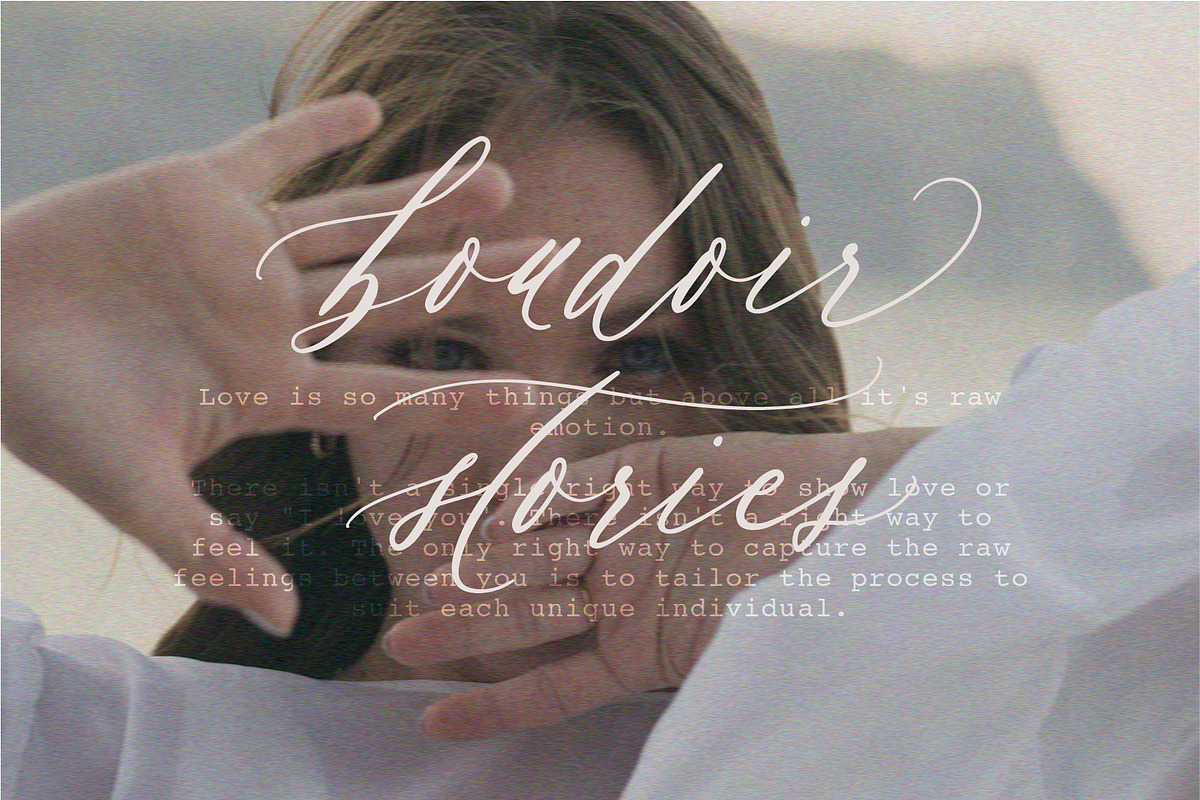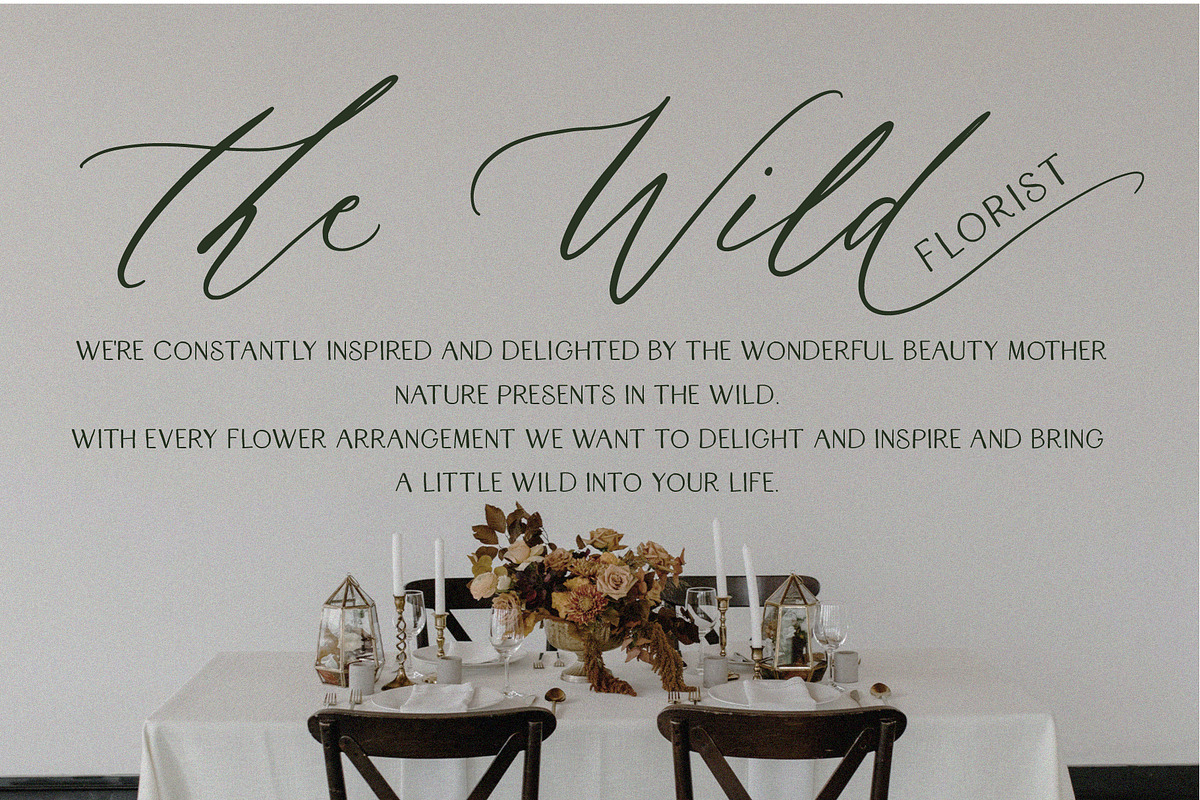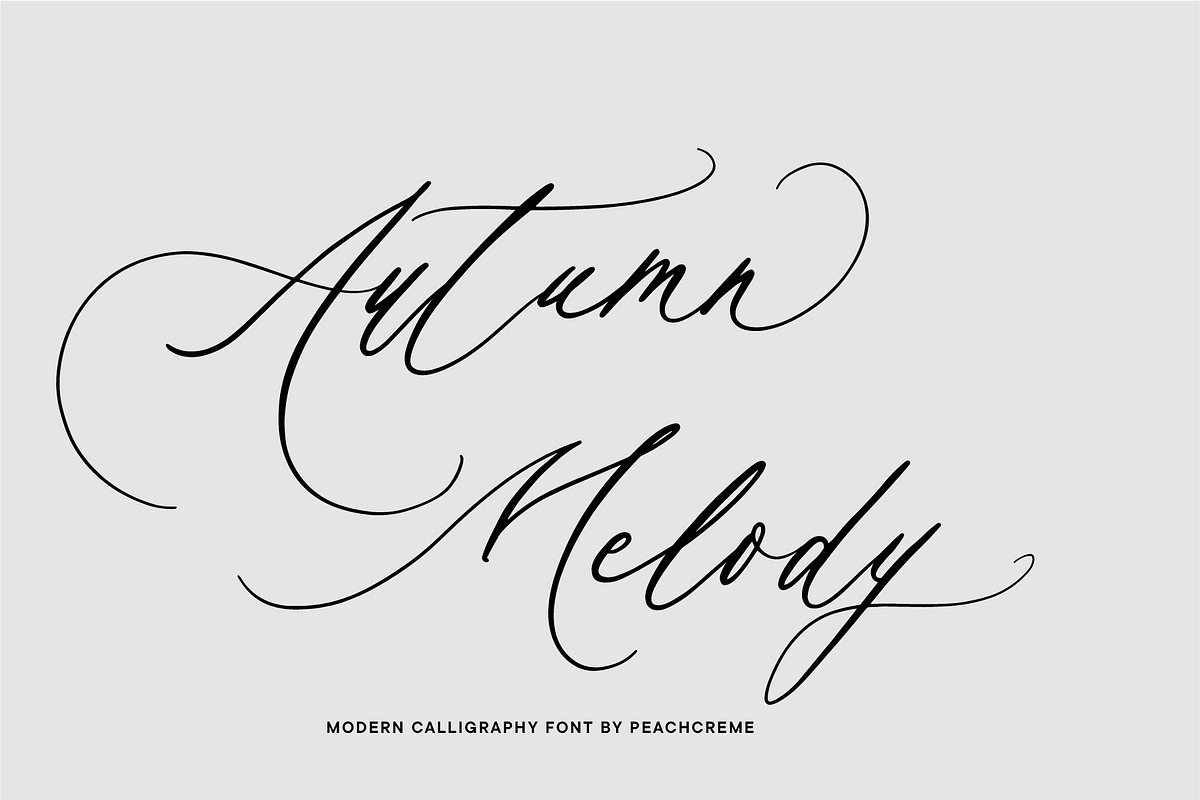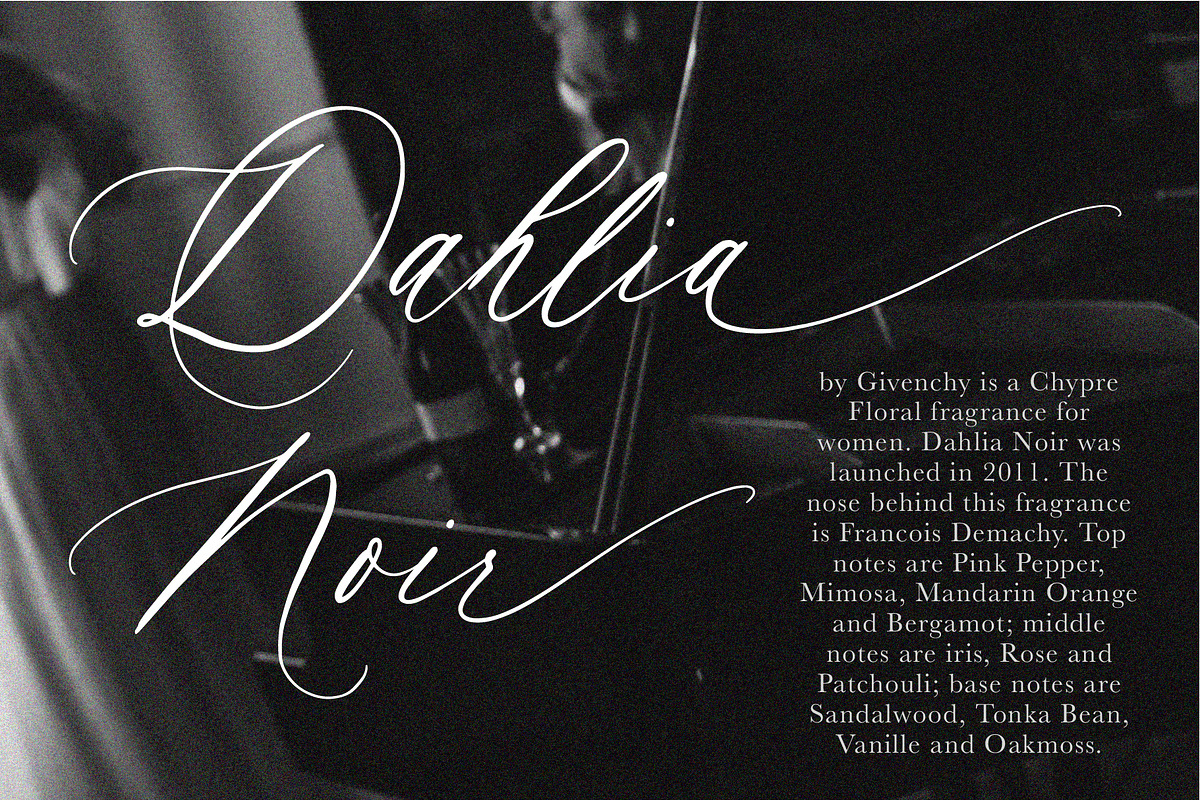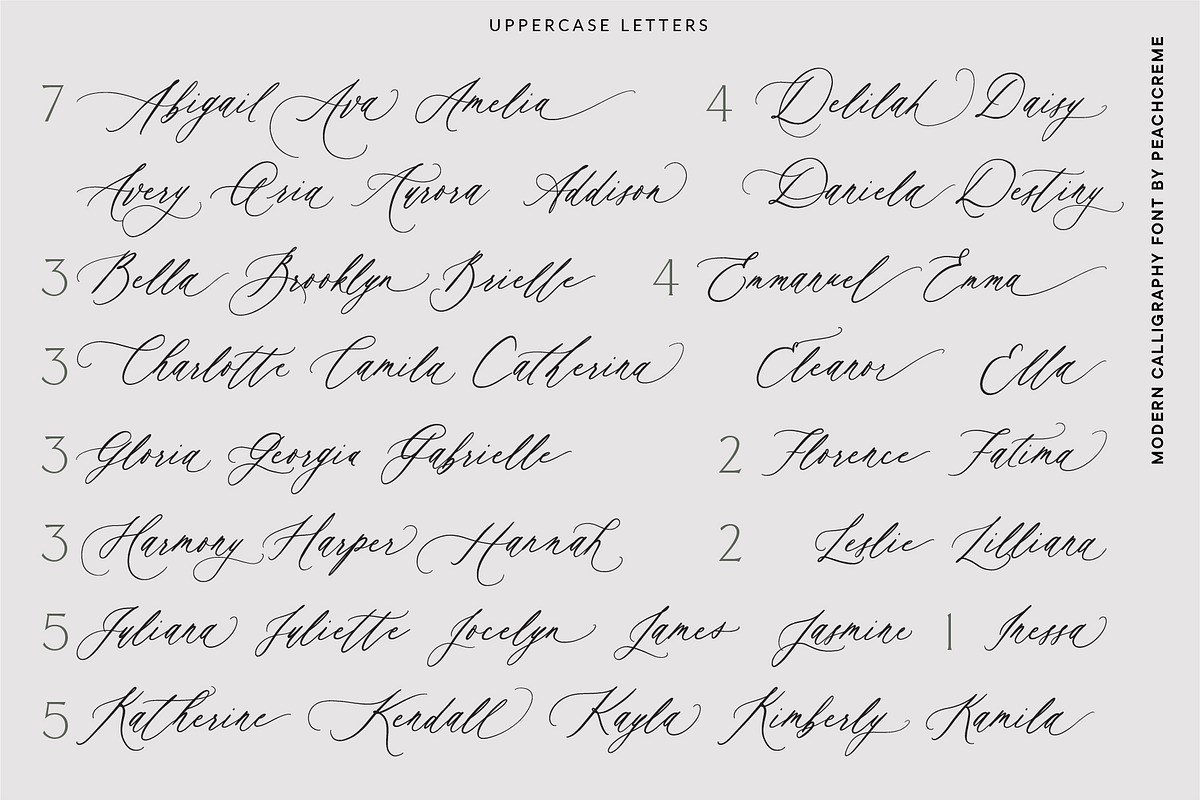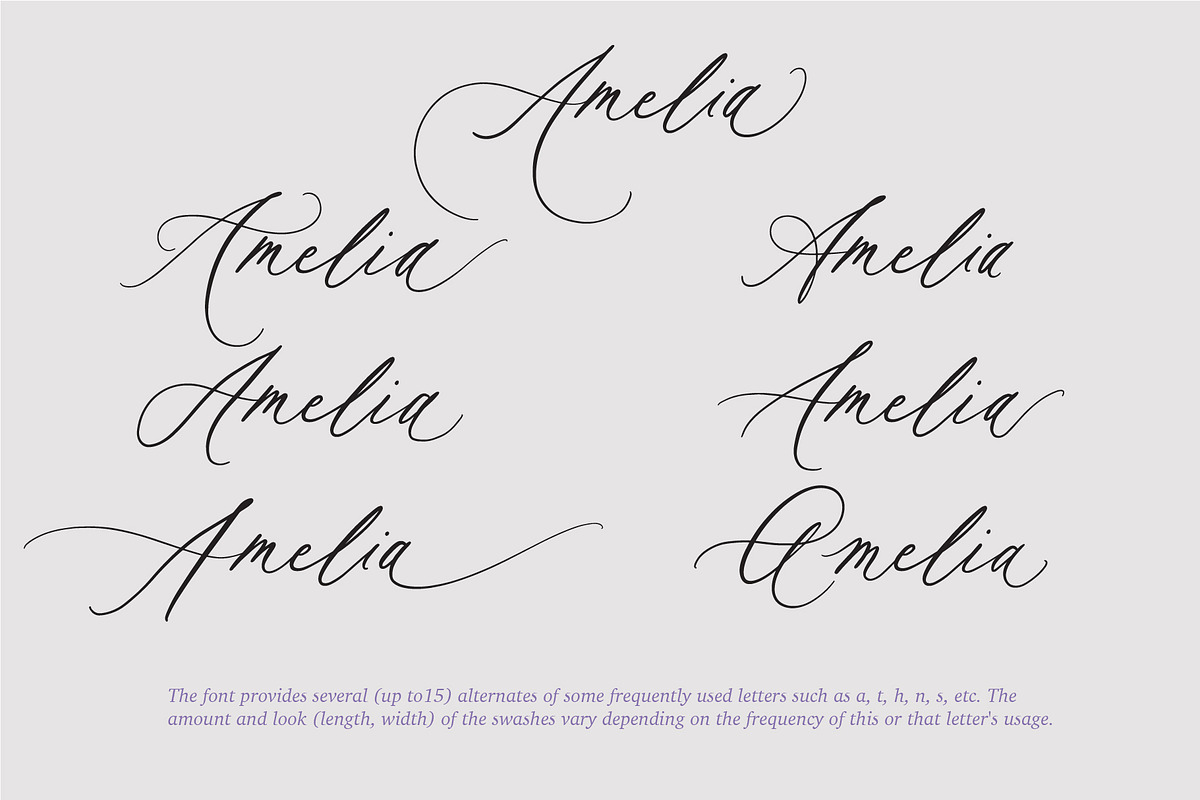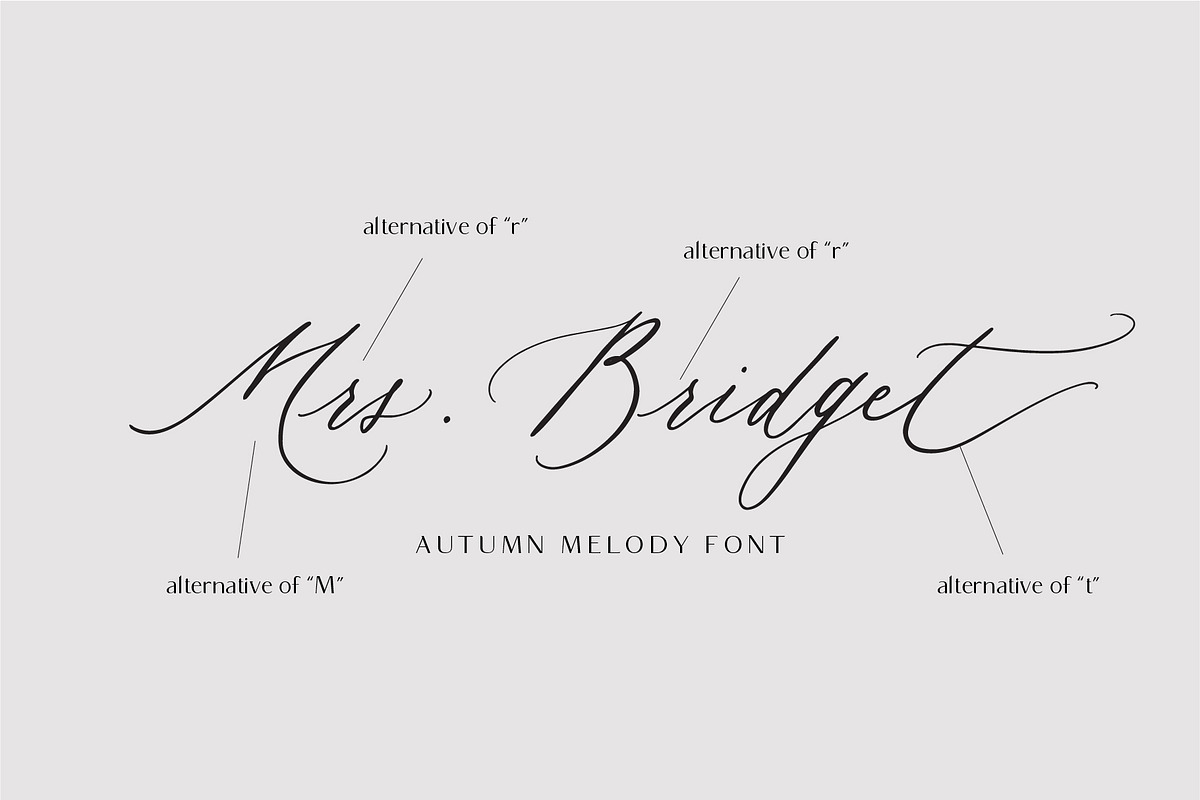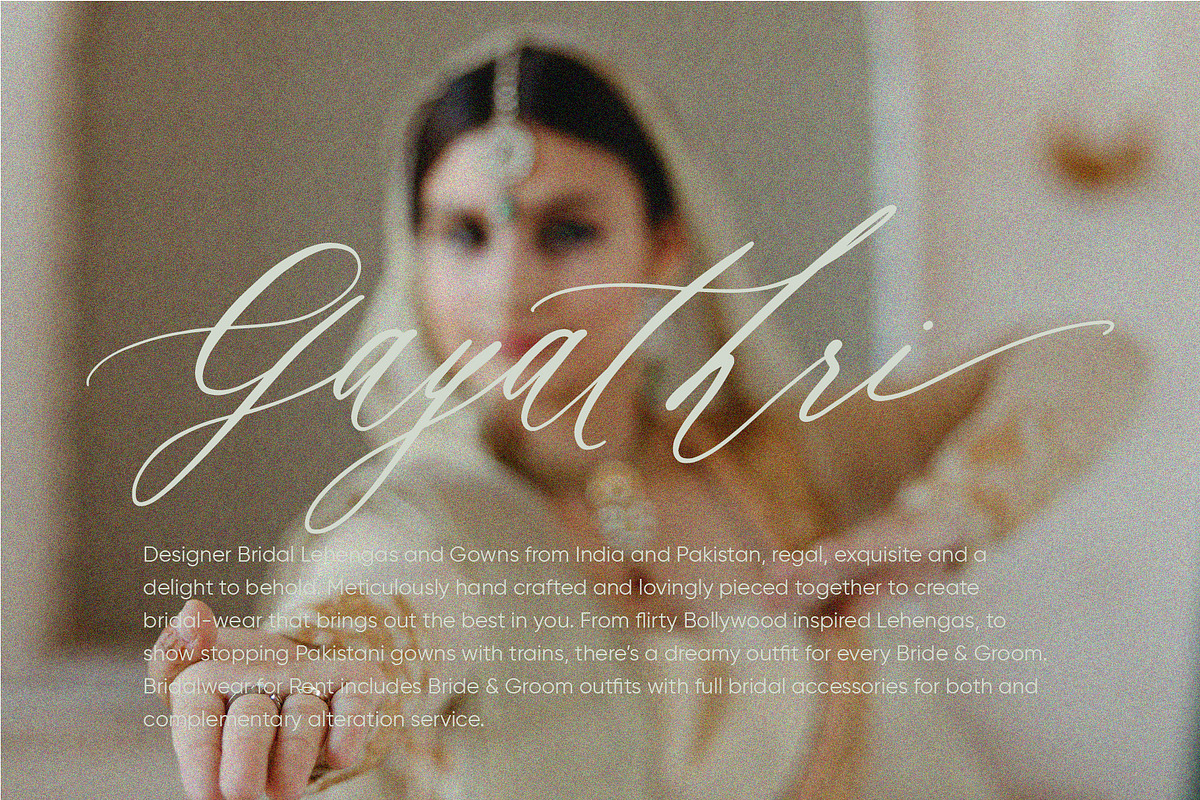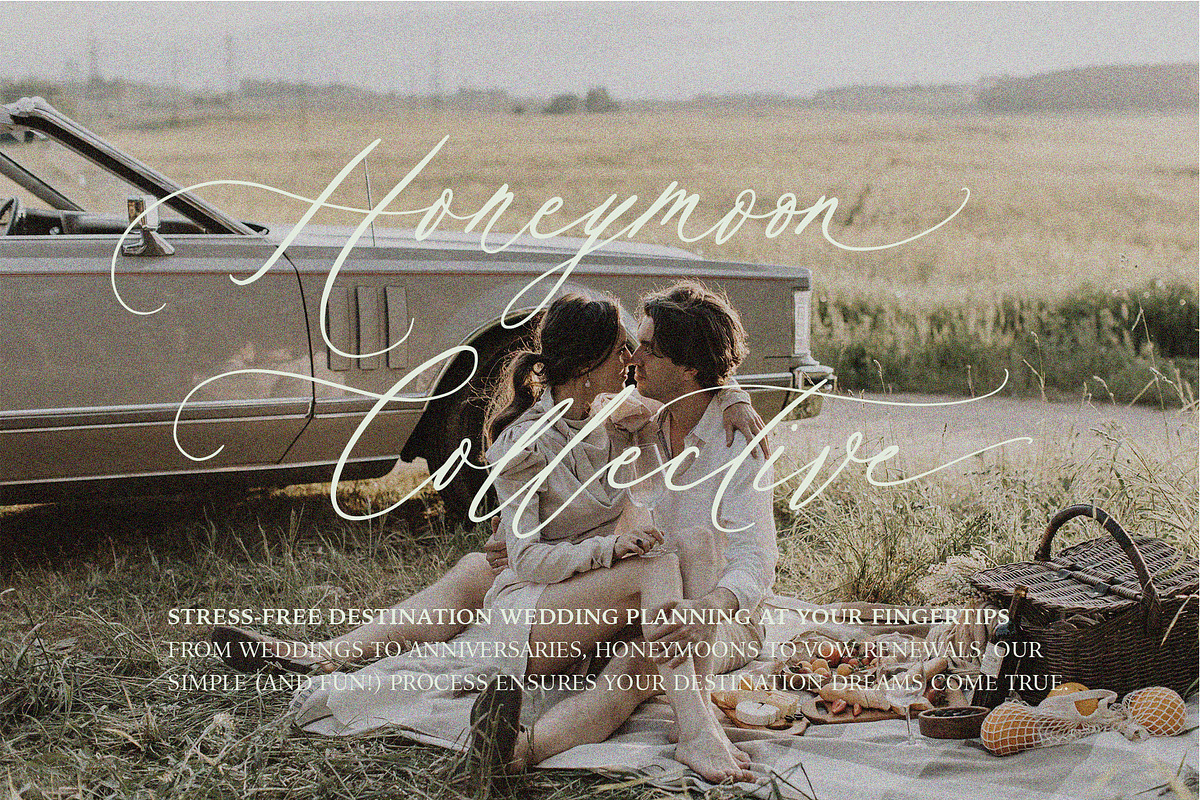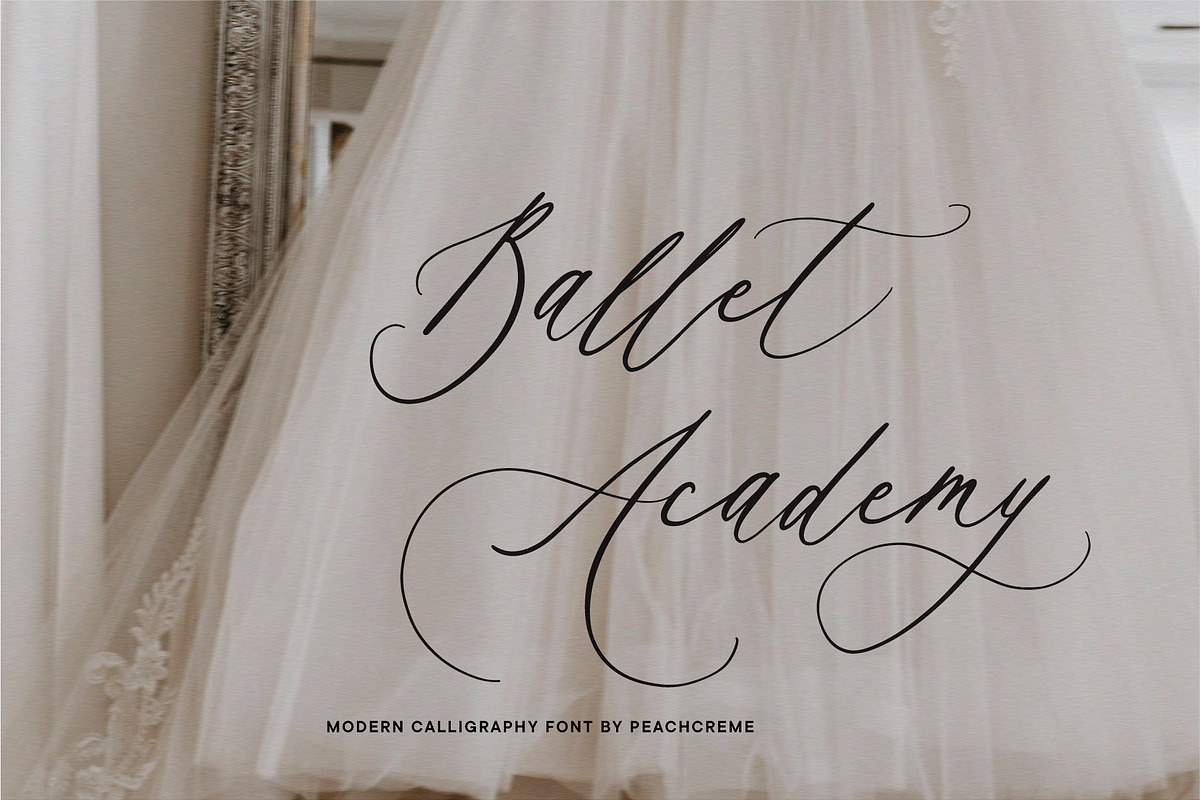
Autumn Melody // Wedding Calligraphy
Say hello to our new font Autumn Melody!
Autumn Melody is a modern calligraphy font that adds a classy and deluxe touch to your designs. The main pursuit of this font is to give you that authentic hand-calligraphy feel. Autumn Melodycomes with a full set of uppercase and lowercase letters as well as ligatures and beautiful letter alternates. The font provides several (up to15) alternates of some frequently used letters such as a, t, h, n, s, etc. The number and look (length, width) of the swashes vary depending on the frequency of this or that letter's usage. Autumn Melody is suitable for many projects related to the wedding industry (stationery, logo, etc.) The files you get:
Please note that this font has OpenType features: alternates, ligatures.